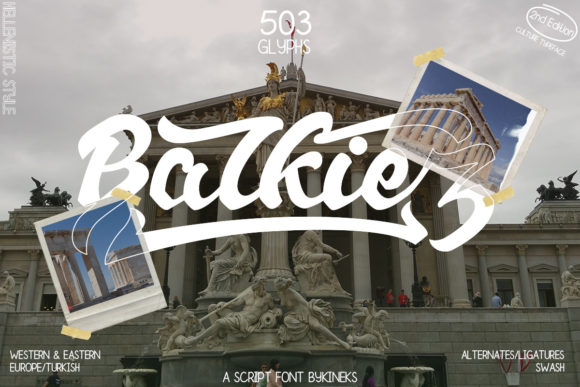
Unleash the allure of Balkiez, a captivating script font that will cast a spell on your designs. Dive into a realm where nostalgia meets modernity, as this retro gem transports you back to the ethereal days of Hellenistic artistry. Each stroke of Balkiez is a testament to the enduring power of ancient aesthetics, reimagined for the digital age.
With Balkiez at your fingertips, you'll weave enchanting tales through typography. Its ethereal curves and graceful flourishes add a touch of magic to any creation. Whether you're crafting captivating product packaging, branding projects that leave a lasting impression, or magazine covers that demand attention, Balkiez empowers you to conjure up designs that whisper timeless allure.
Step into the spotlight on social media, where Balkiez will make your posts shine brighter than ever. Its elegant lines and enchanting charm will amplify your message, captivating your audience with effortless grace. Celebrate the milestone of your love story with wedding invitations adorned in Balkiez's exquisite script, transforming your special day into an unforgettable symphony of joy.
But wait, there's more! Balkiez isn't just a font—it's an artistic haven where words dance with whimsy and imagination. Unleash your creativity and let Balkiez guide you to breathtaking heights of self-expression. Whether you're a seasoned designer or just starting your typographic journey, Balkiez will become your muse, inspiring you to create masterpieces that transcend the ordinary.
So, why settle for mundane fonts when you can embrace the enchanting power of Balkiez? Let its retro-authentic charm ignite your passion for design, and watch as your creations blossom into works of art that captivate hearts and minds.
Embrace the allure of Balkiez today, and let your typography soar to new heights. Every design you create will become a timeless treasure, leaving an indelible mark on the hearts of those who behold it.